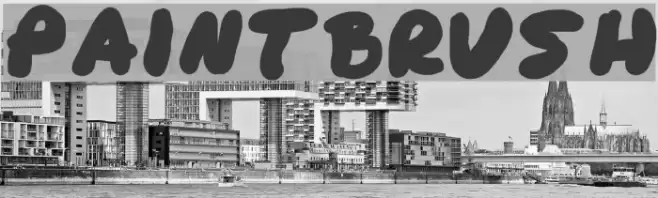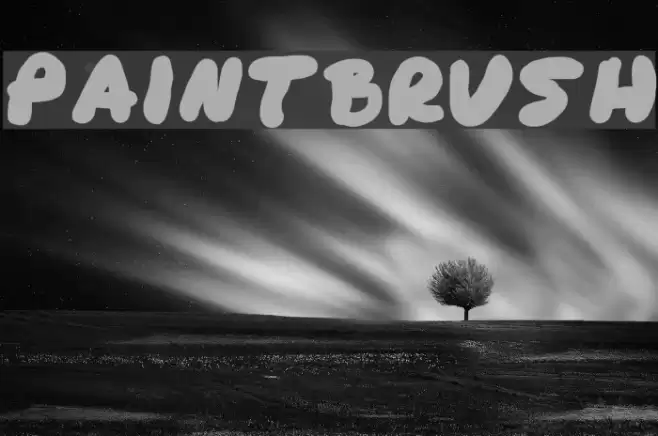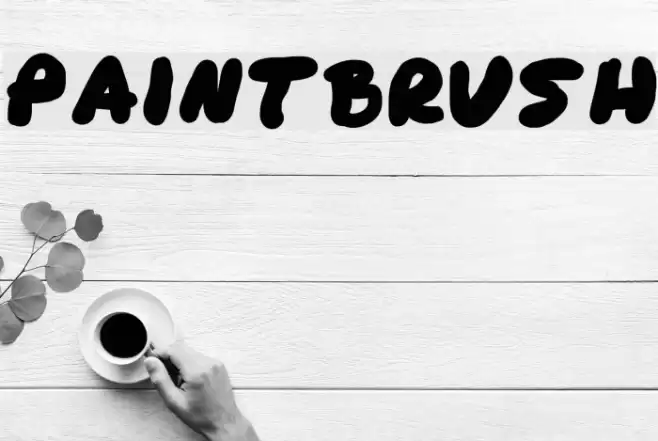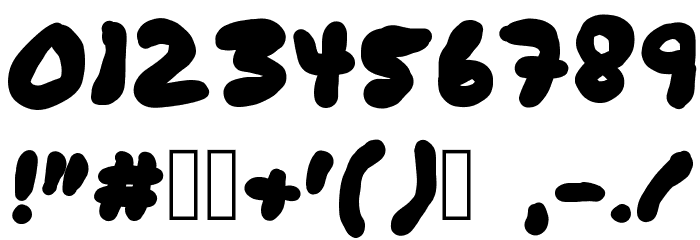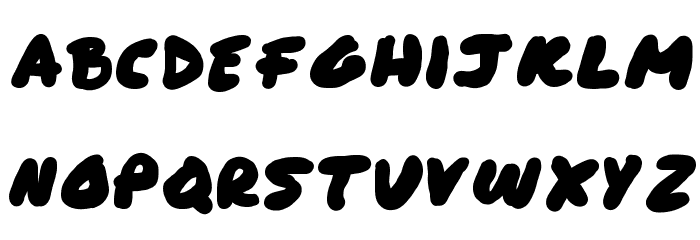
paintbrush Font
paintbrush Description
This font features a bold, brush-like style with a playful and energetic appearance. The characters are rounded and have a hand-painted look, giving them a casual and artistic feel. The strokes are thick and consistent, creating a strong visual impact. The uppercase and lowercase letters maintain a cohesive style, with smooth curves and a slightly irregular baseline that adds to the hand-drawn effect. The numerals and special characters follow the same design principles, ensuring uniformity across the font. This typeface is ideal for projects that require a personal touch or a creative flair.
A bold, brush-style font with a playful, hand-painted appearance from Uncategorized fonts.